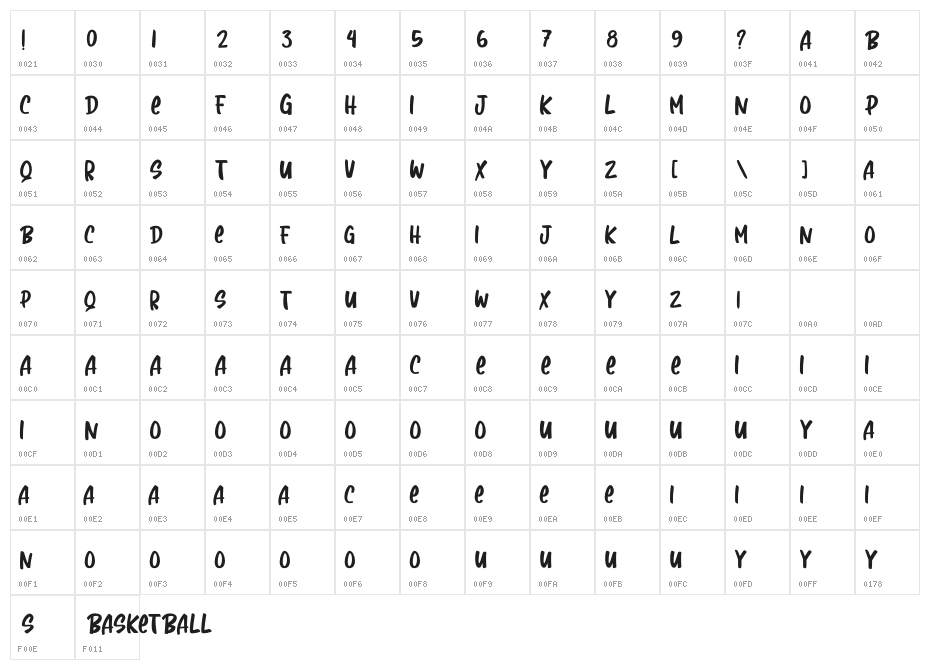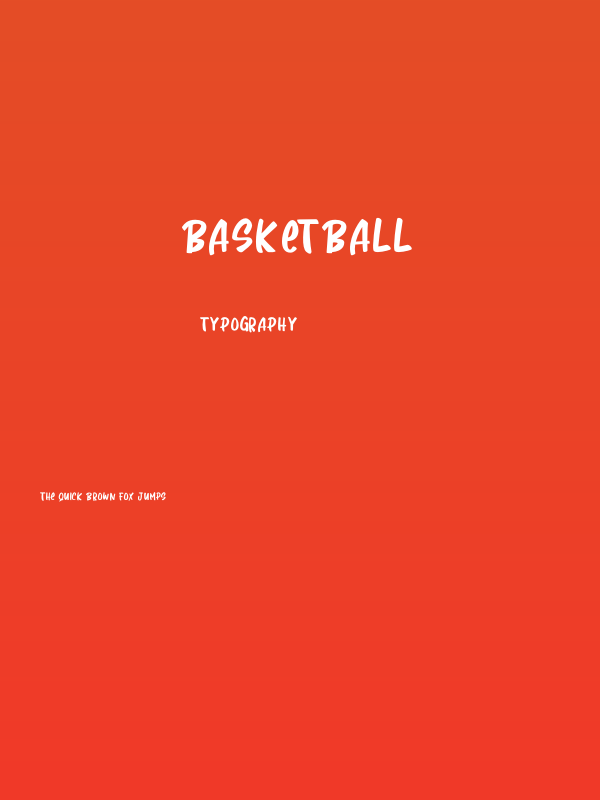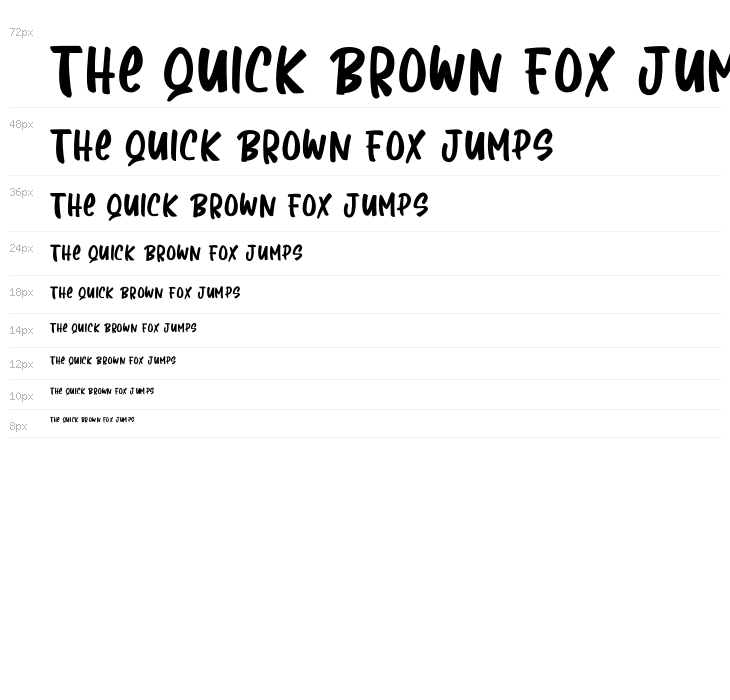
Basketball Font
✎ Comic
| Категория | Comic |
| Общий стиль | Playful |
| Область применения | Logos, Headlines, Informal Text |
| Рекомендуемые проекты | Ideal for projects that require a fun and informal touch, such as children's books, playful branding, or casual invitations. |